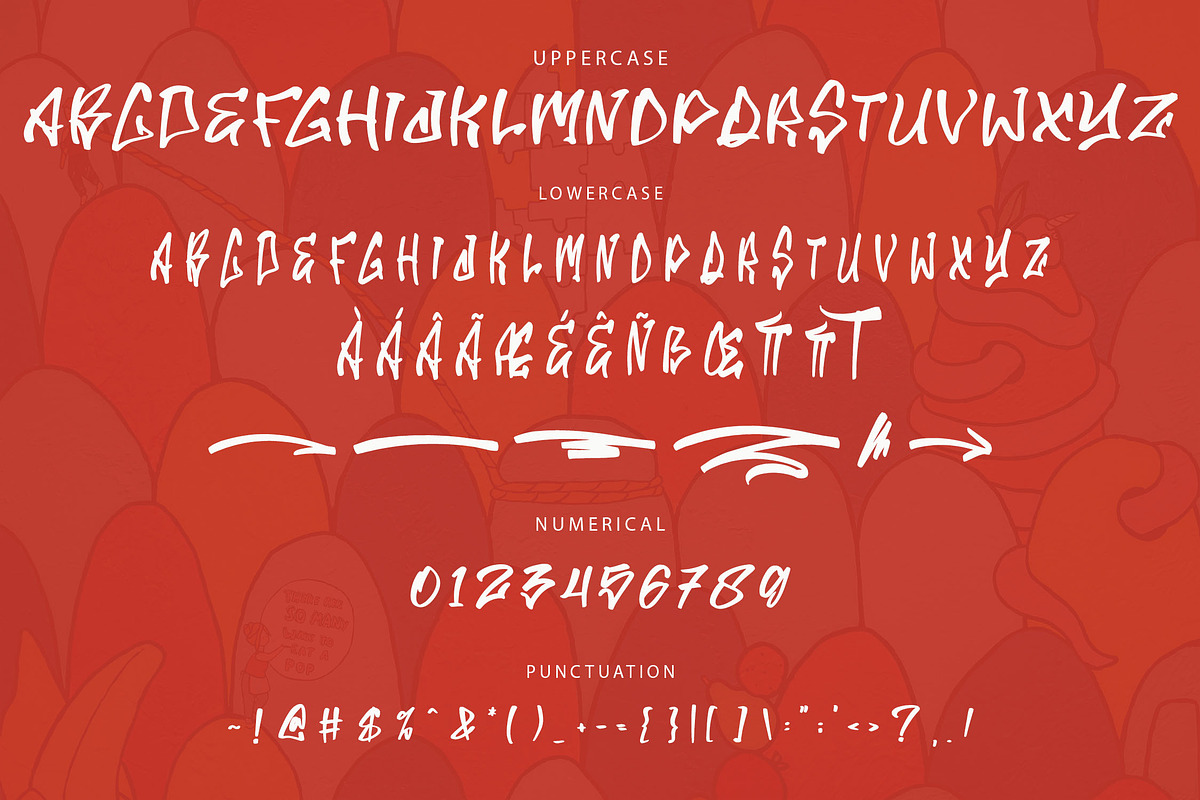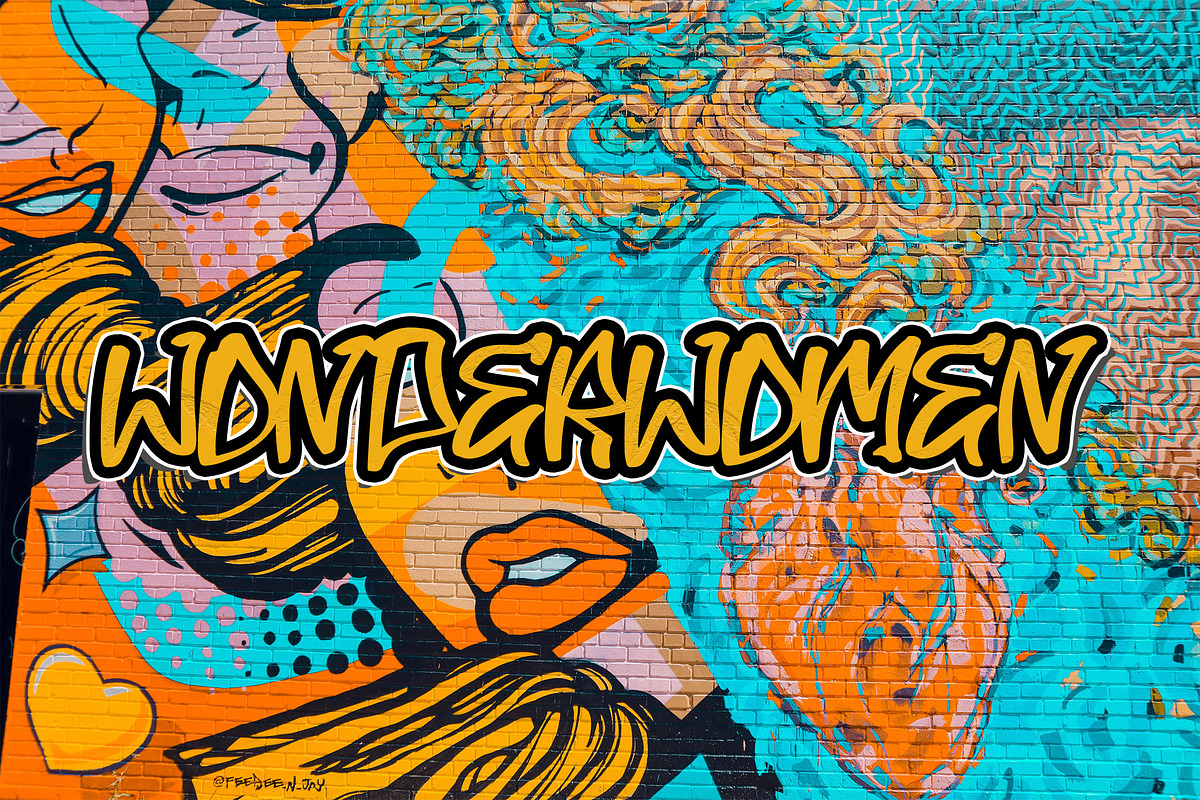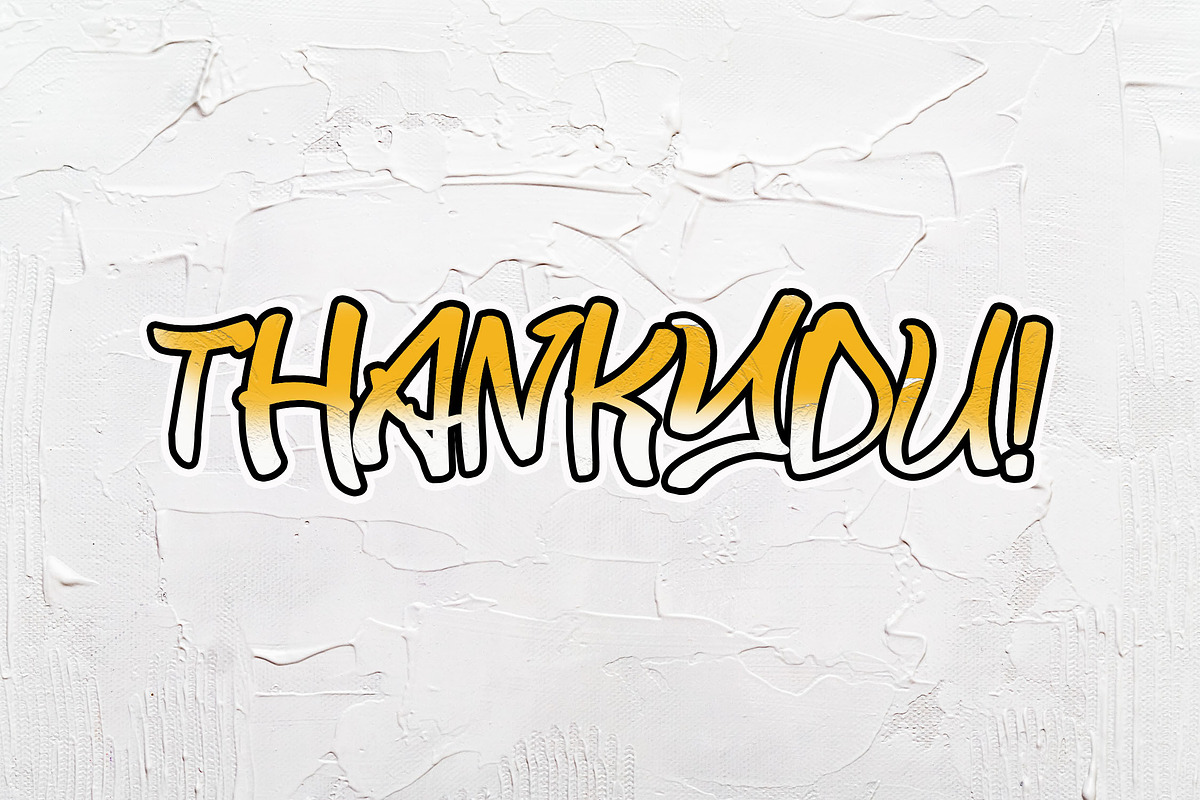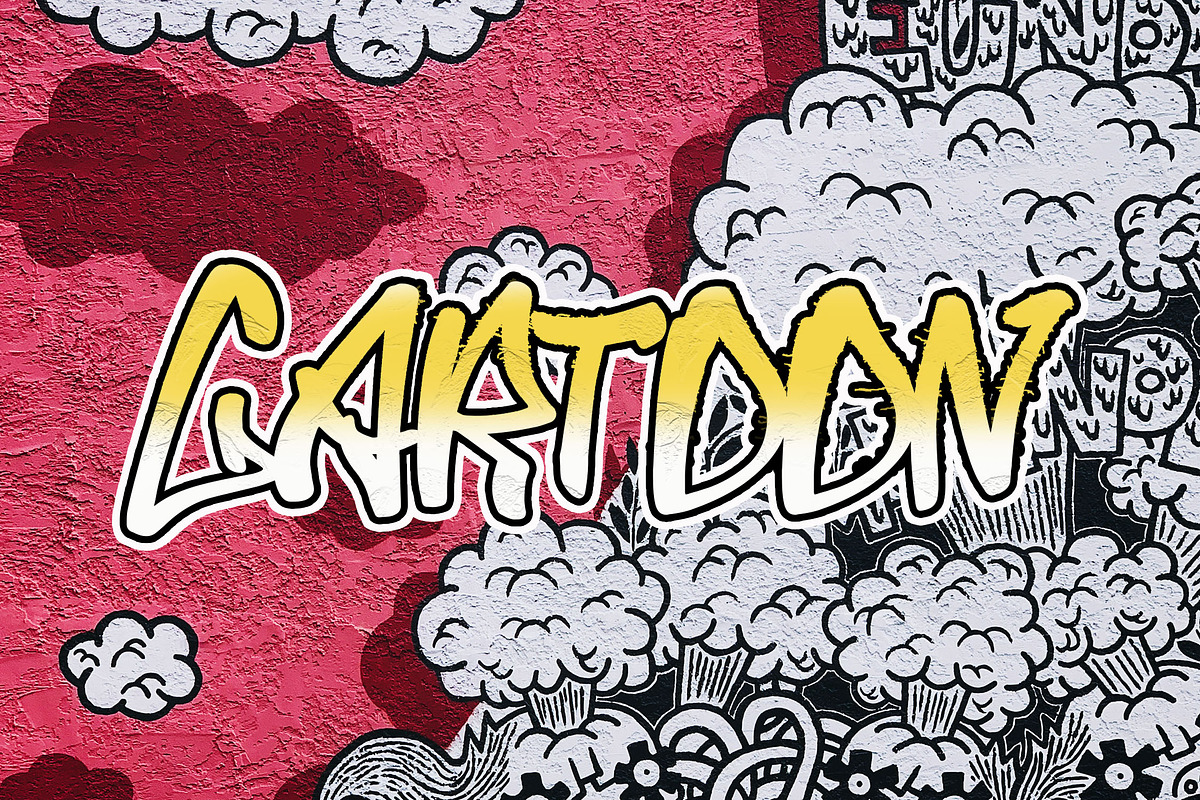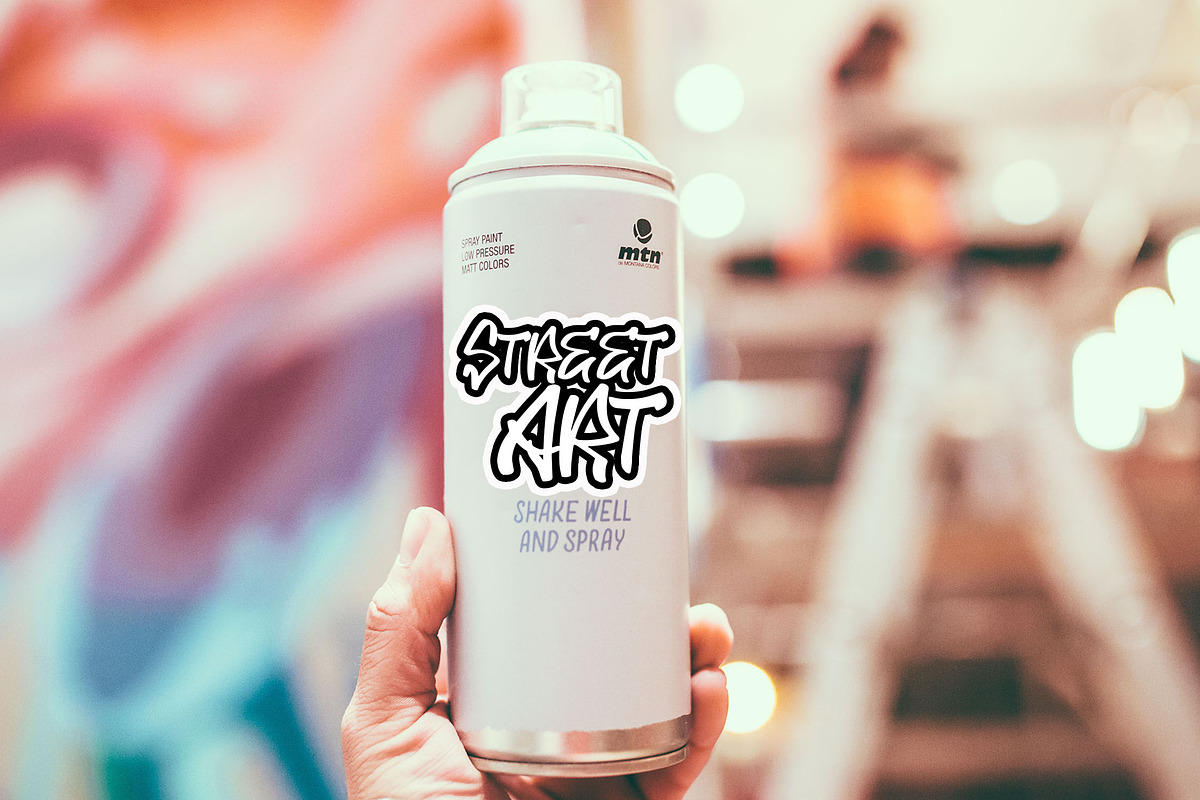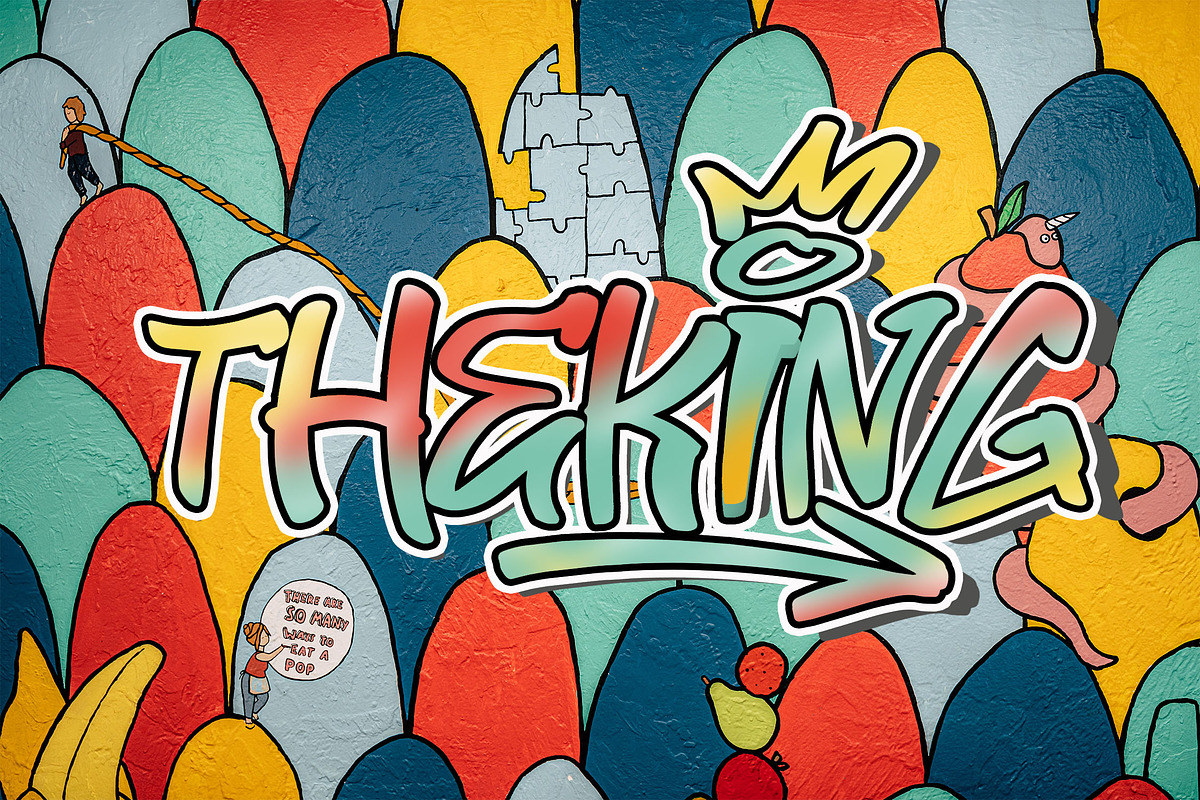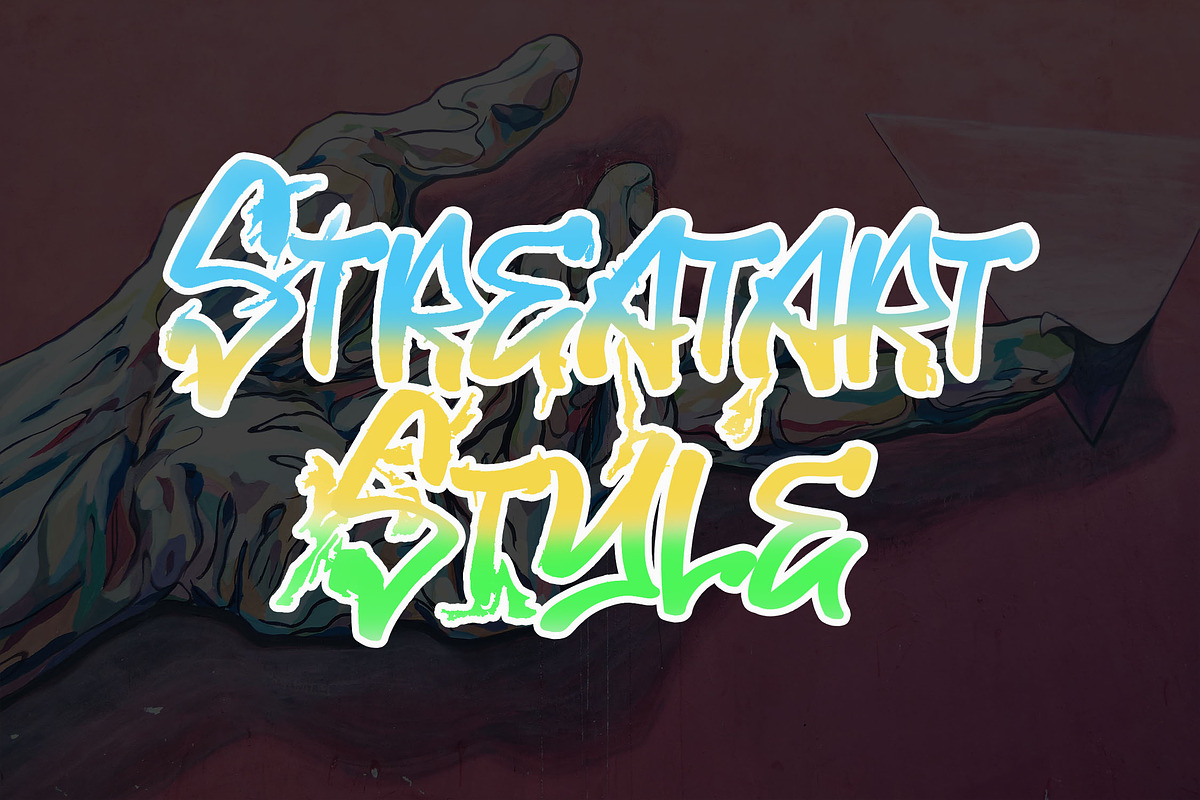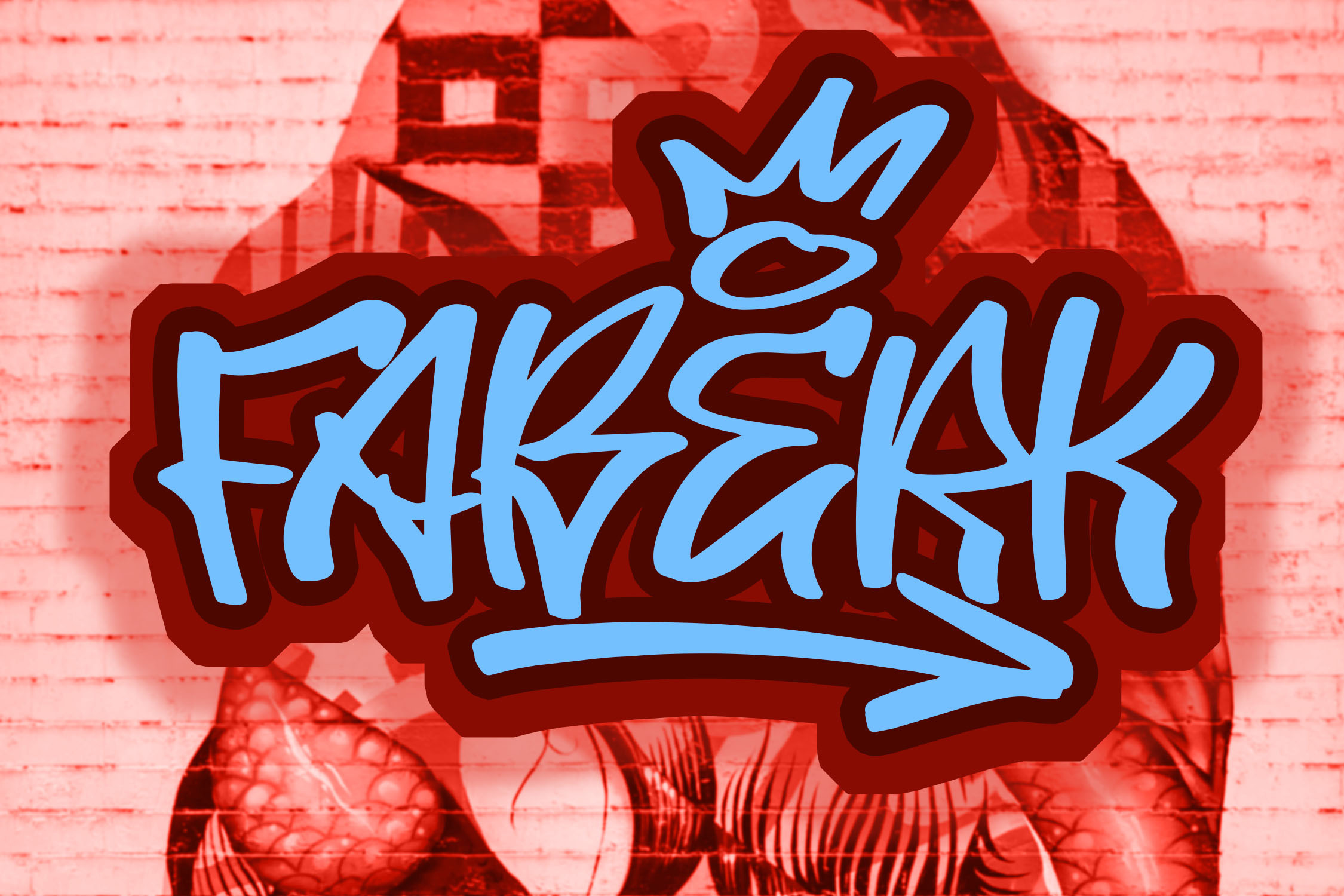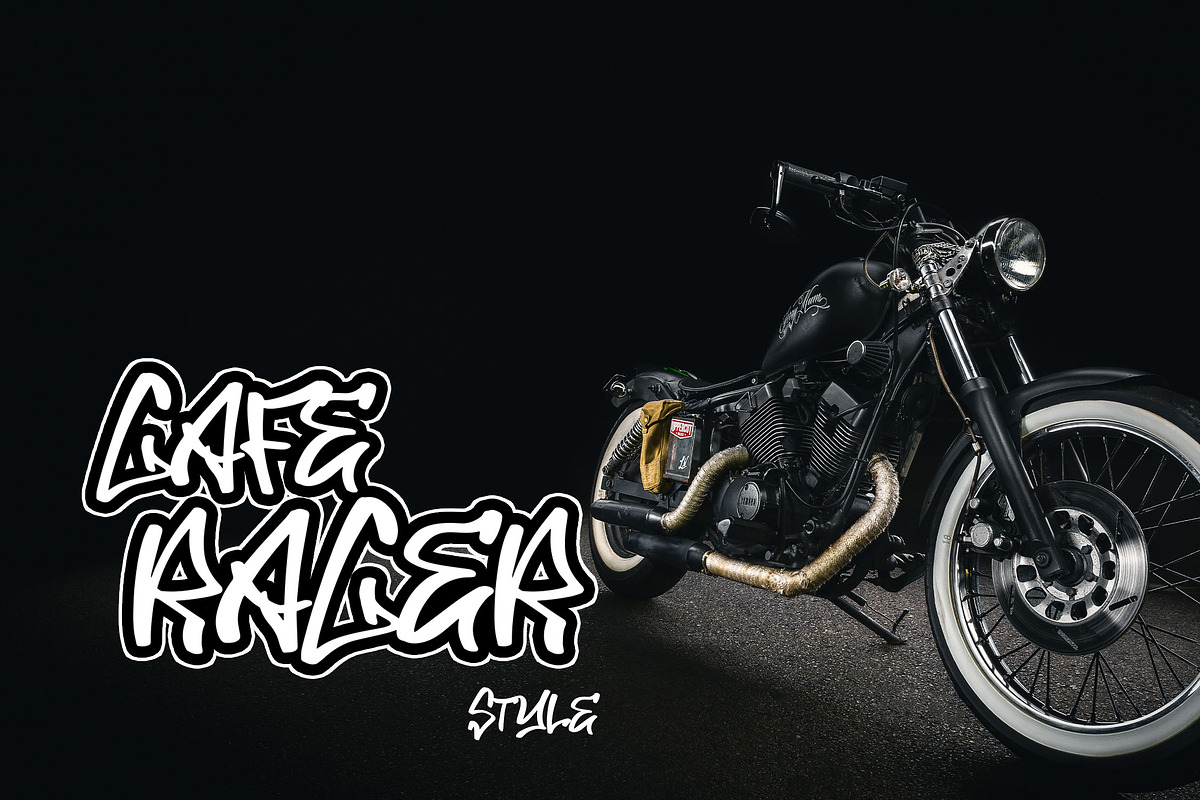
FABERK Graffiti Font
FABERK is a bold graffiti font with a dynamic handbrush style, perfect for adding an urban, edgy feel to your designs. Its unique character shapes bring a raw and energetic vibe, making it ideal for street art-inspired logos, branding, apparel, and more. FABERK enhances the visual impact of your projects with its distinctive and creative lettering.
- Ligatures: Seamless connections for authentic graffiti-style text.
- Stylistic Alternates: Customize your designs with alternate characters.
- Swashes: Add energetic strokes to make your text pop.
- Multilingual Support: Ideal for a variety of languages and alphabets.